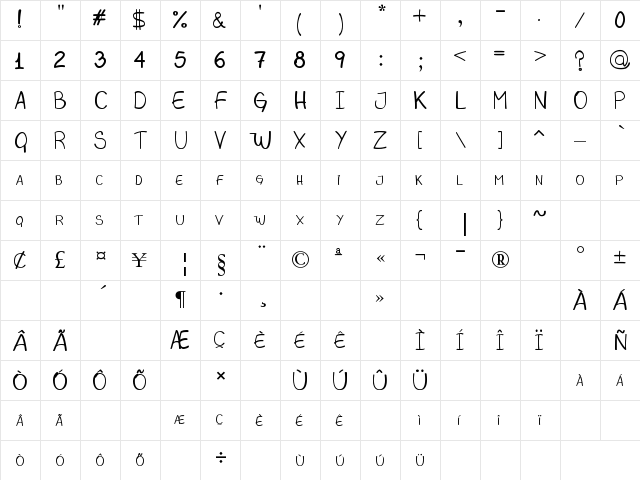
MAGBIS Regular
Design Context for MAGBIS Typeface
MAGBIS is a composed and adaptable typeface that performs quietly and consistently across a wide range of design contexts.